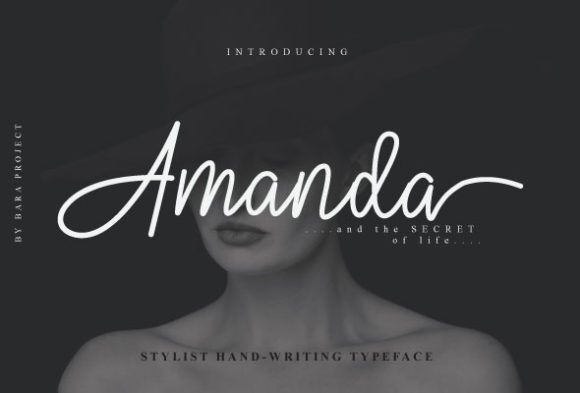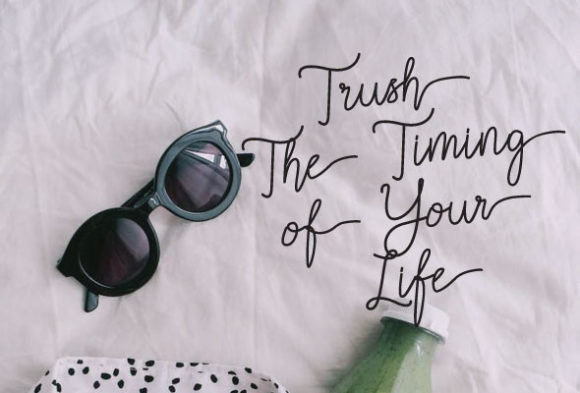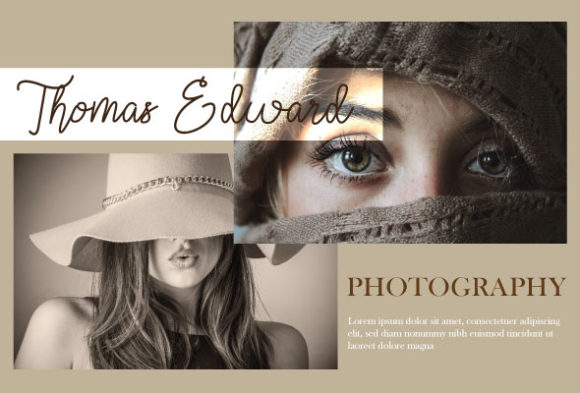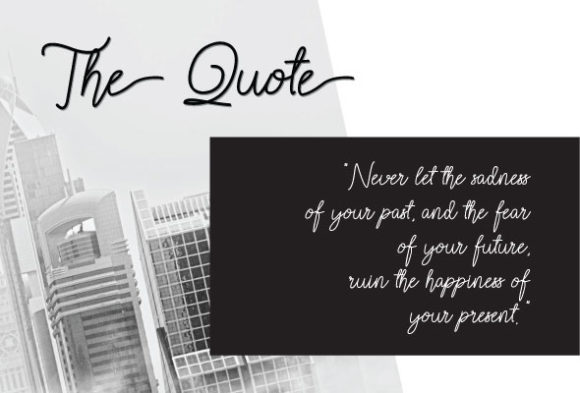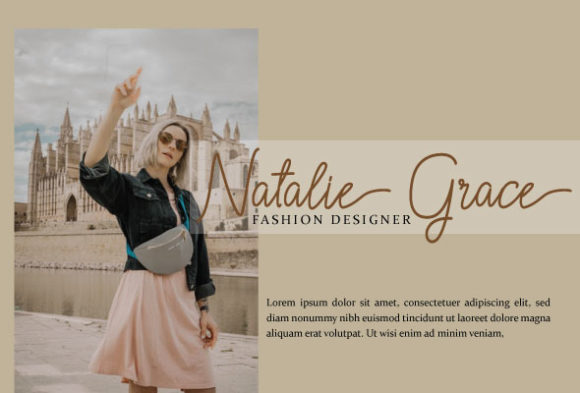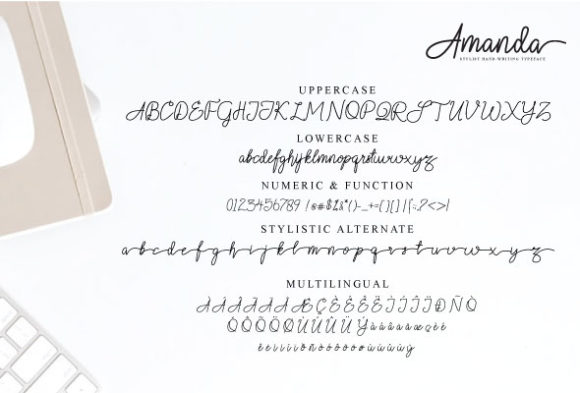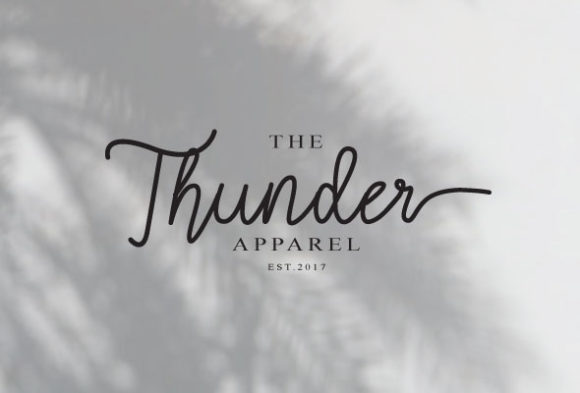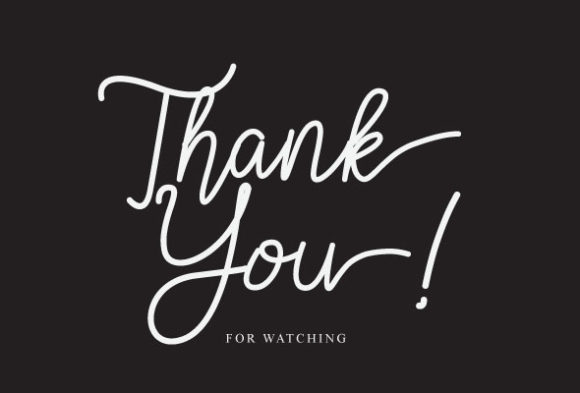
Amanda Font
About Amanda Font
Amanda’s gorgeous signature style will easily take any creative project to the next level. Fall in love with its unique look!